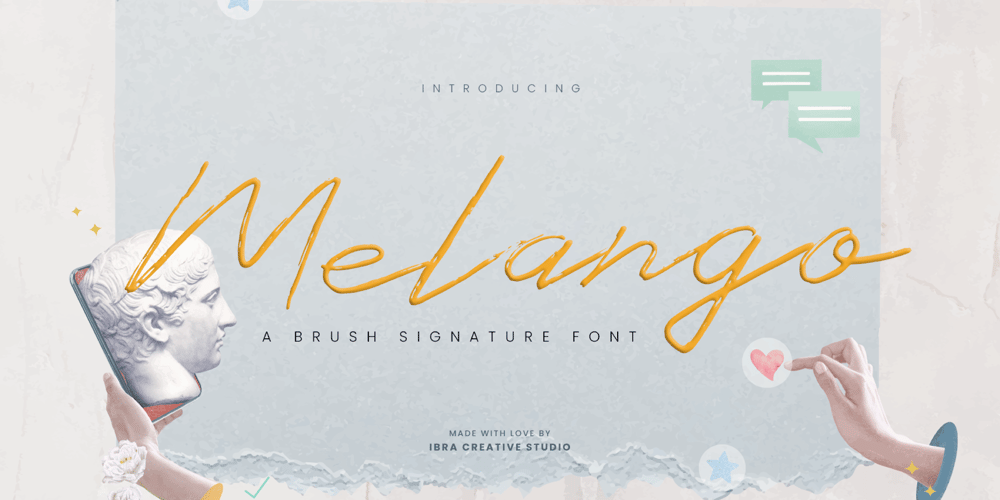
Melango
Melango font
Melango Font Family was designed by Roisatul Azizah and published by IbraCreative. Melango contains 1 styles and family package options. Melango is a captivating and artistic brush signature font that exudes a sense of flair and personality. With its handcrafted and expressive strokes, Melango captures the essence of a genuine signature, as if written with a brush. Each letter carries a unique and fluid charm, adding an element of authenticity to any design. The brush-like texture and varying thicknesses create a natural and dynamic appearance, making Melango an ideal choice for logos, branding, and creative projects seeking a touch of artistic elegance. Whether used for invitations, greeting cards, or social media graphics, Melango effortlessly infuses designs with a sense of warmth and creativity, making it a standout brush signature font.